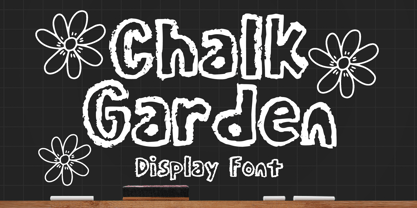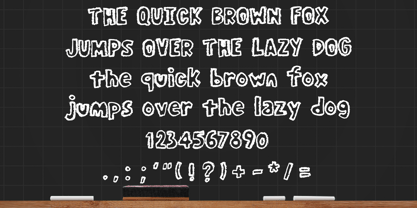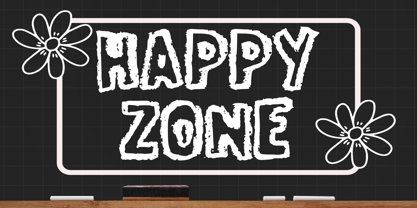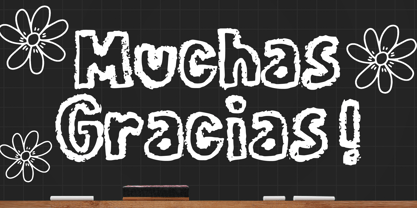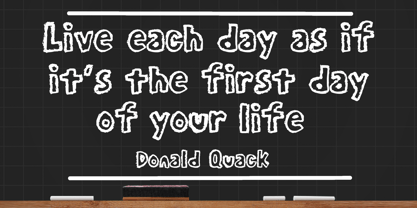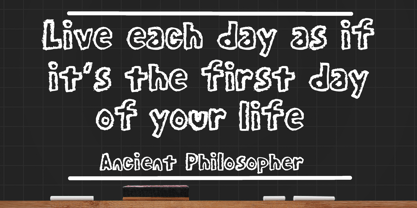
Chalk Garden
by Mvmet
The Chalk Garden Font Family was designed by Gabriel Valentinus and published by Mvmet. Chalk Garden contains 1 styles. More about this family
Introduce a whimsical touch to your creative projects with Chalk Garden, a delightful handwritten font featuring an engaging pencil or chalk texture. This versatile font offers an easy-going aesthetic, perfect for trendy t-shirts, captivating book designs, innovative packaging, and heartfelt greeting cards. Captivate your audience by using Chalk Garden for eye-catching stickers and vibrant posters. Its casual style adds an artistic flair, inviting you to craft stunning designs that you and your audience will adore. With Chalk Garden, infuse your works with irresistibly playful charm, making it ideal for branding, web design, and editorial projects.
Designers: Gabriel Valentinus
Foundry: Mvmet